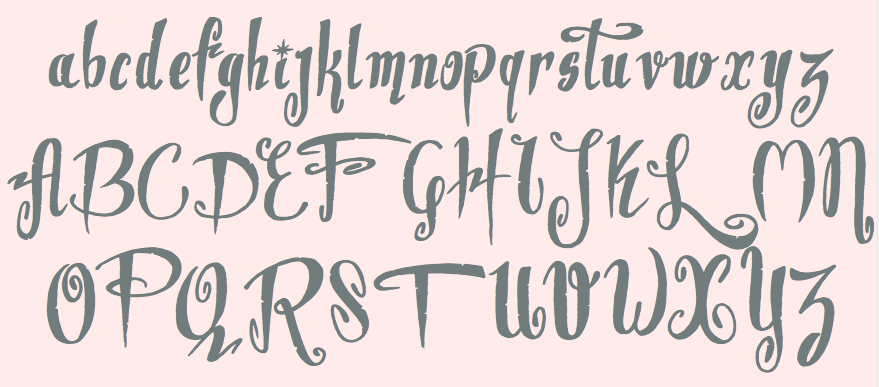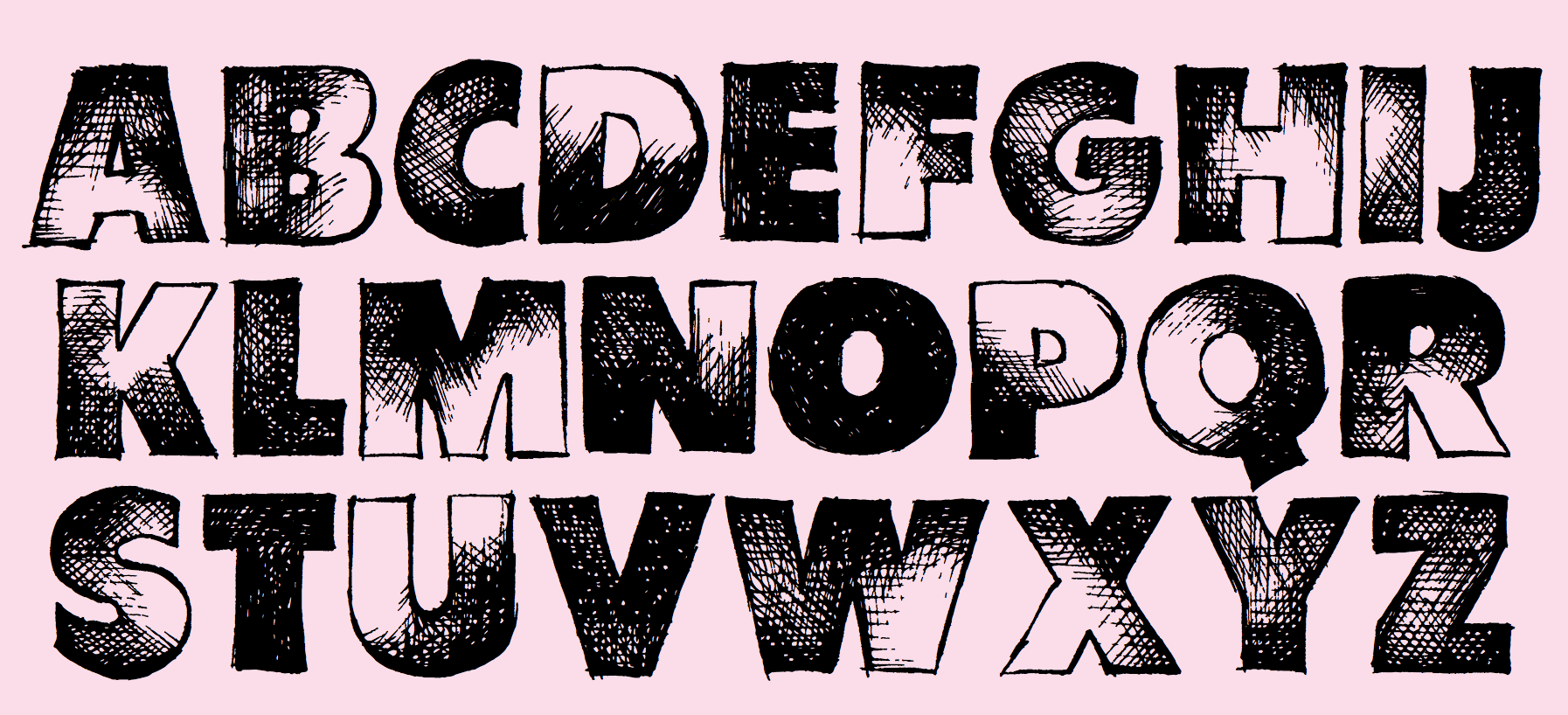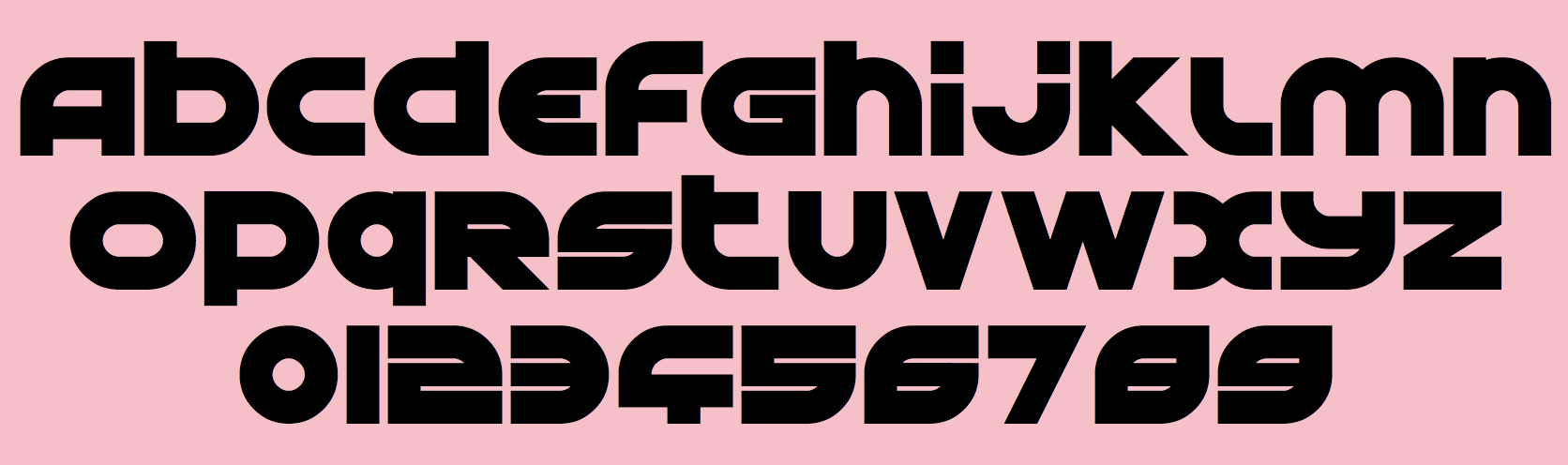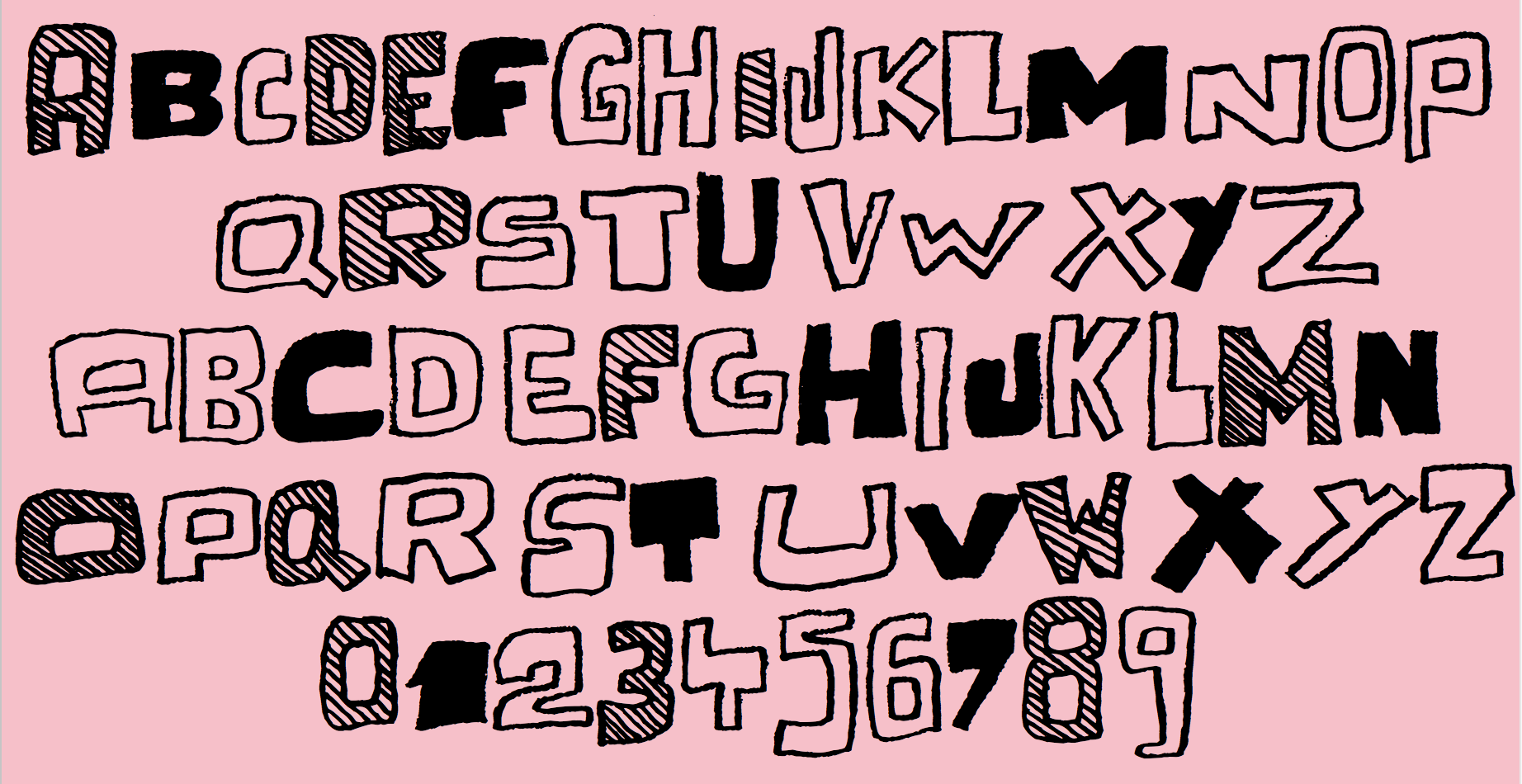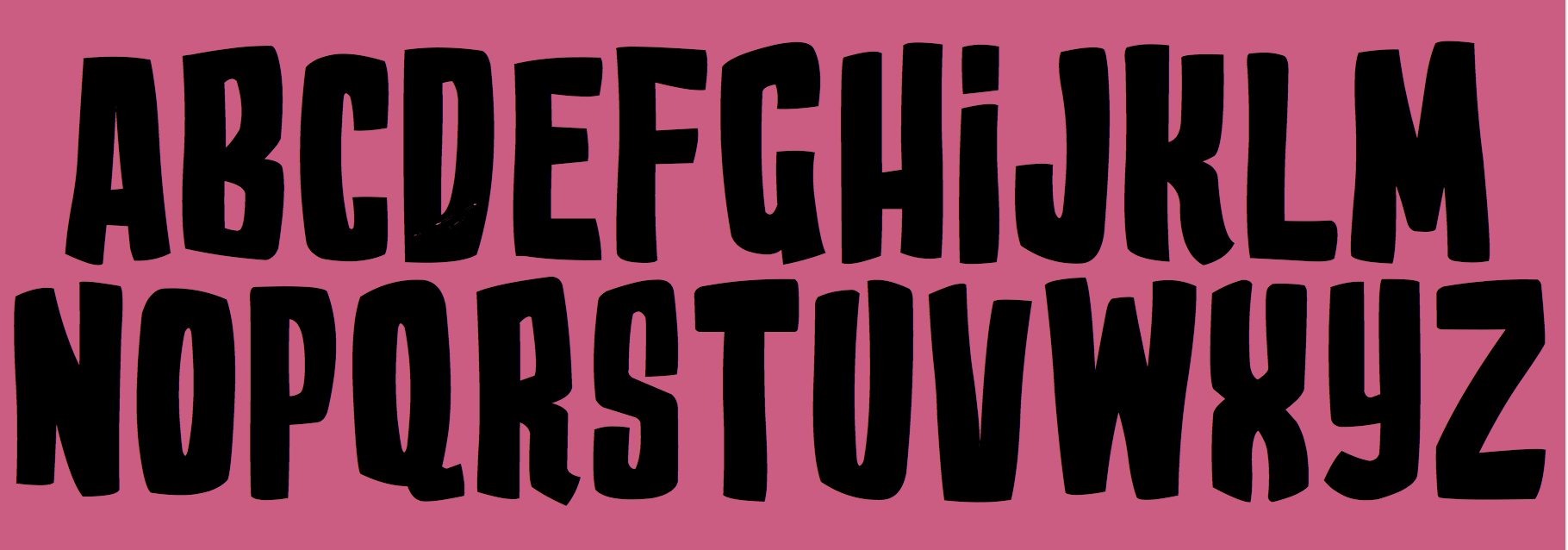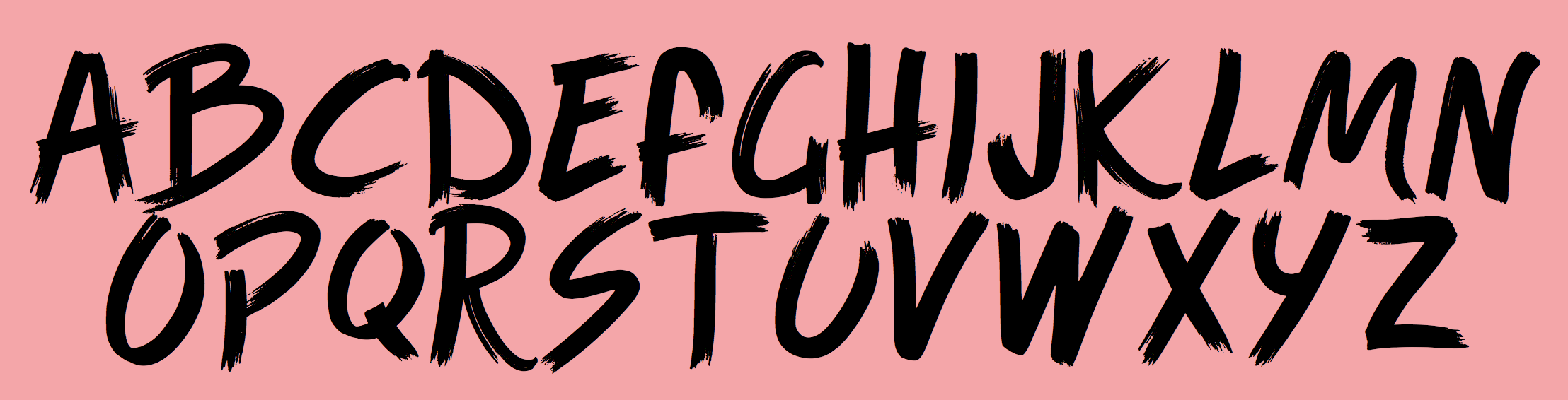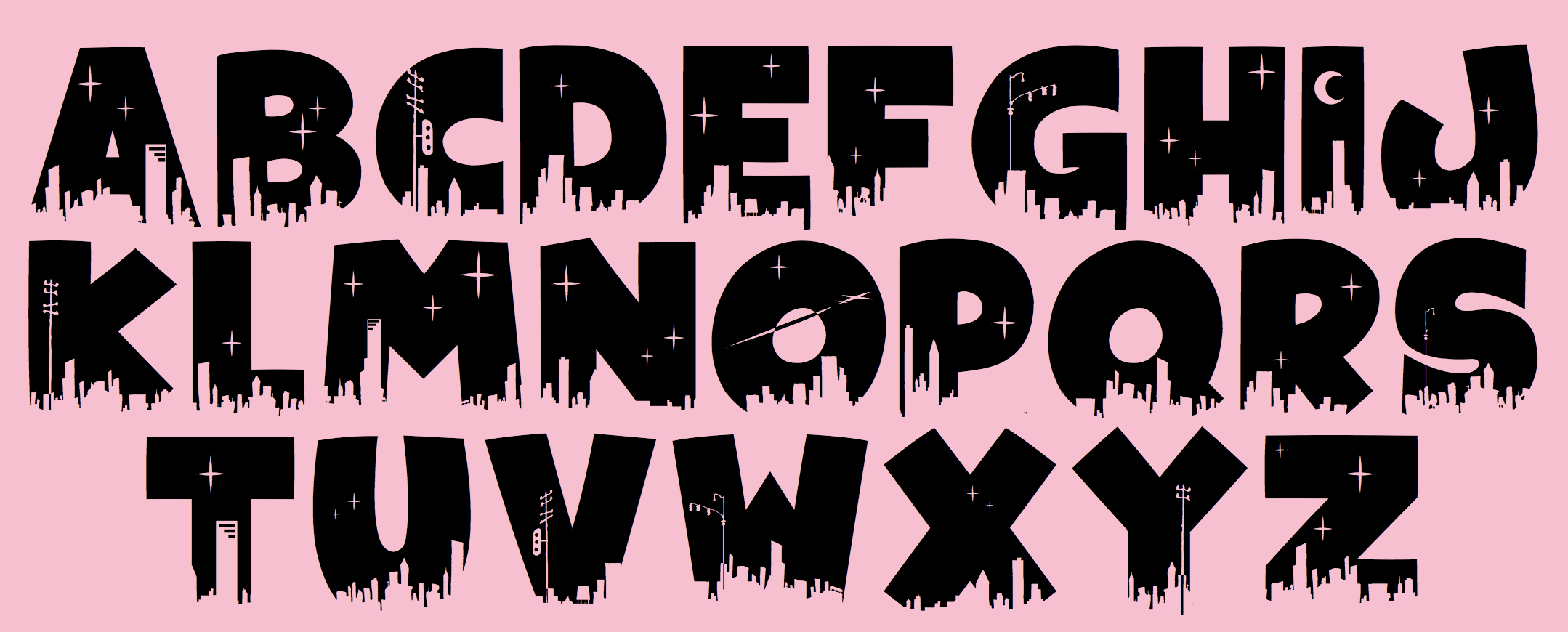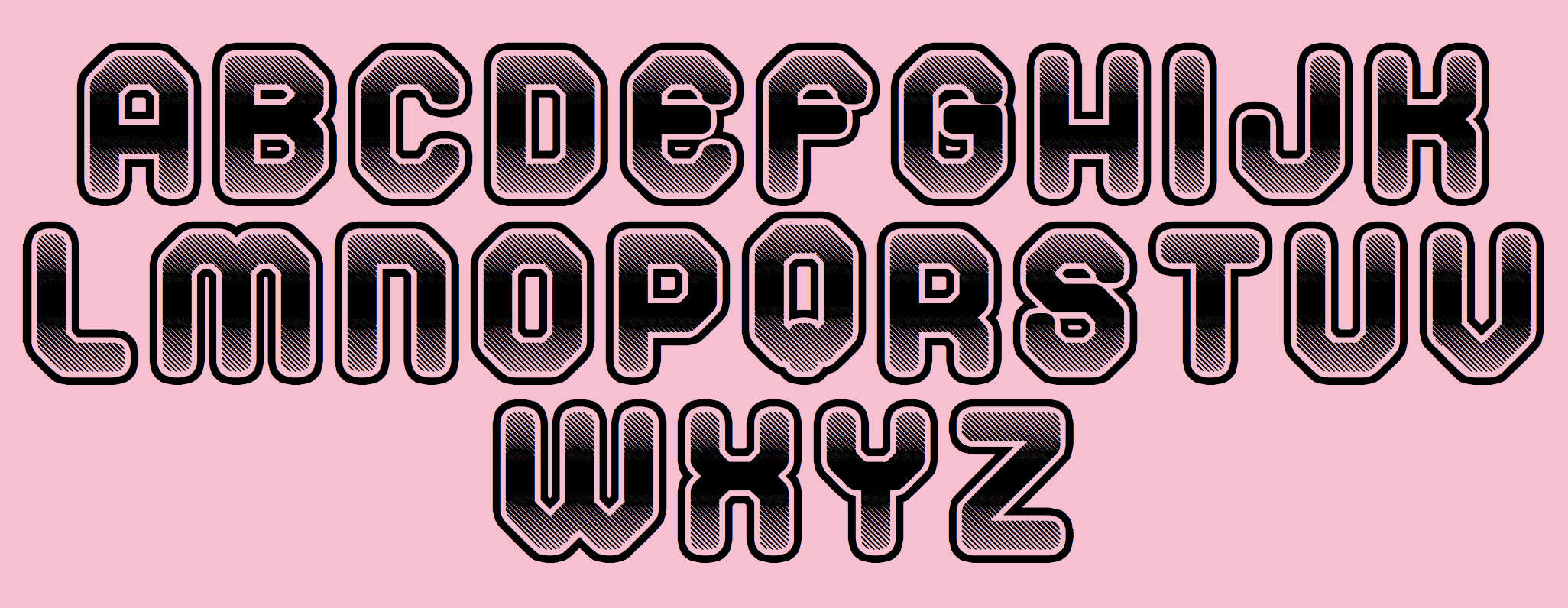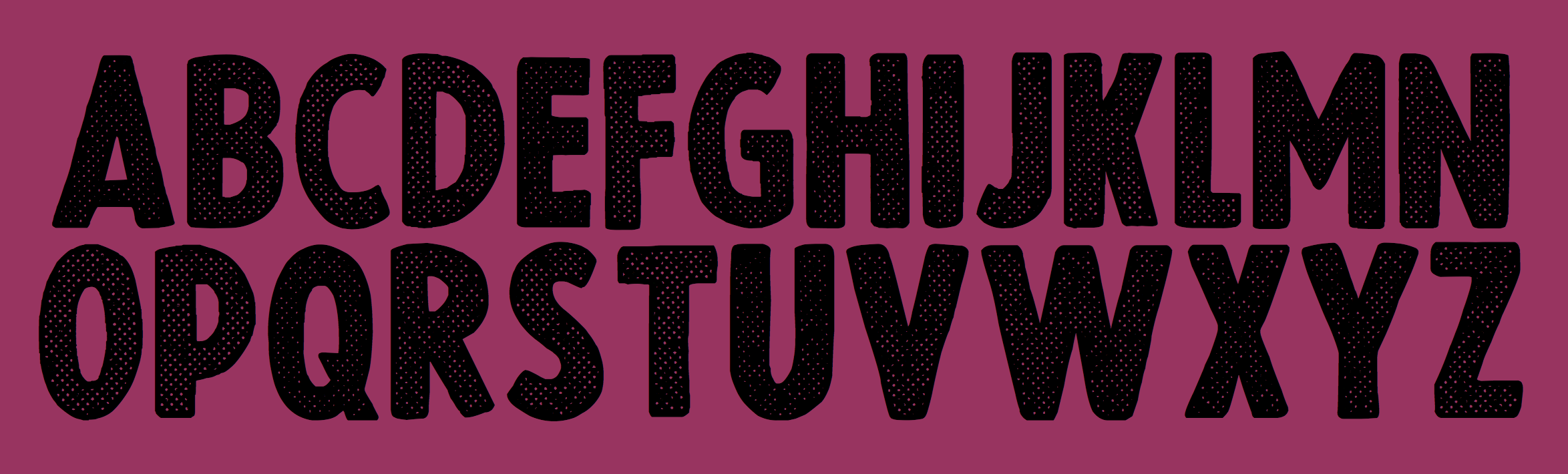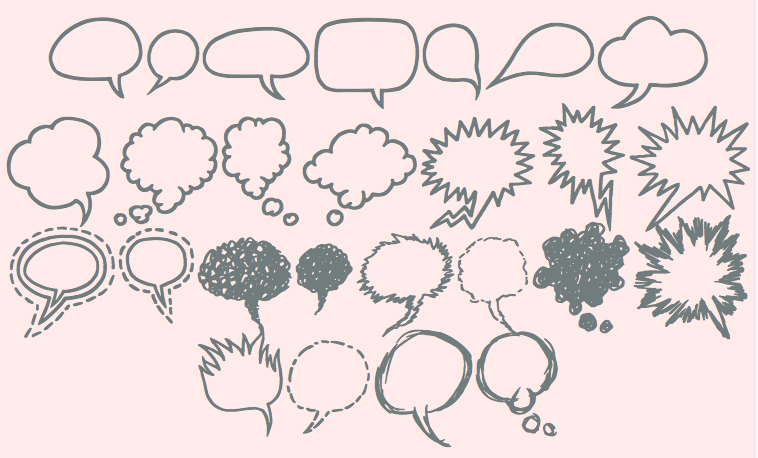
Frenchman (b. 1957) who started making fonts in 2010, after a career in illustration, comics, and video games. In 2010, he created the free fonts BabyJo (pixel face), Bayday, Chrom (beveled face), LaPresse (grunge), Muffaroo, Poppy, Poppydot, Spacecard, Strokewith, Strokeless, ToonLand (comic book lettering), ToonLandBlack, ToonLandShad, TrashToys (grunge), WorldColors (3d face).
In 2011, he published Francobelge (comic book face), Freepress (grunge), Gamix (Western titling face), Inmyroom (dingbats), Majestrick (calligraphic), Onomatopaf (comic book dings), Outerzone, OuterzoneB, Starz (dingbats), Stenstreet (grunge), Tram, Tramix (texture face), TrashToys02, War-Lettersn, Mixagex, Massive Dynamite (grunge), Not Well (grunge), Actu, Blck, Gling (texture face), HeRioz (silhouettes), Brightoon (cartoonish brush face), Muzo (ink spill face), Sharpy, Space Shop (dingbats), Pulp Dance (hand-printed), Essef (art deco), Retro Sign (grunge), Labo (grunge), Exhausted, Komikoz, Puzzled, Toonimals (dings), Penstriped (sketch face), Cashier (grungy), Dan Hand, Hardwell (grungy caps), Colleged (athletic lettering), Goodjean (jeans texture face), Seaside Things (dingbats), Real Tek (techno), Zou (3d hand-printed caps), Painter, Border Line (grunge), Handout (grunge), Tract (grunge), Pulpatone (grunge), Logos I Love, Pal Antic (chancery hand), Twent (fat rounded display face), DoodFlow (dingbats), Afro Add (texture face), Crump (grunge), Big White, Dark Room (grunge), Manifesto (grunge), Tacketil (a FontStruct font), Otto Land (sketch face), Over (outline face), Under (brush dings), Baskertown (grunge), Nursery Tale, Panic (texture face), BlackNDot (ink spill face), Beyond (striped display face), Advert, Car Crash (grunge), Heartz, Starsteel, Smart Faces, Blackflag (a brushed blackletter), Dock 51 (grungy stencil), Lead (3d face).
In November 2011, he created a number of texture typefaces: Hotöcop, Pal Mod, Speedy (sketch face), Thirties Gold, Sunset GP.
Further 2011 typefaces: Poptivi, Shadow Mole, Super Modern Black.
Faces from 2012: Remanence, Winter Days (dingbats), Nowharehouse (grunge), Snuff (grunge), Cup of Tea (3d shadow face), Talk of the wall.
Typefaces from 2012: Egirlz (dingbats), Art Post (white on black poster lettering), Volutes (copperplate calligraphic script), From me 2 you (curly script), PS I Love You, Kolossal (caps only), Kraash, Alexandre (3d engraved headline face), Monstres de poche (dingbats), Alternate (grunge), Warning, Dreams (brush face), Headline Crack, Bump Pad (textured typeface), Carton (grungy white-on-black stencil face), Maybe maybe Not, Frames n Riboons (sic), Blackboard (sketched face), Logotronik (a 3d techno face), Big Bad Dogs (dingbats), Libre Expression (engraved copperplate typeface), Mecagothix (textured blackletter face), Destroy, Destroy Helpers, Buy More, Things we said (curly face), Lost Saloon (Tuscan), Salon de Coiffure (beveled), Brighton Pier (grunge), Motel Vacancy (grunge), Bates Shower (dripping blood typeface), Venus Furs (texture typeface), Showmen, True Men Tattoos (dingbats), Quicker (sketch font), Romanum Est (grungy Trajan face), Also (scratchy letters), Lazy Day (3d font), Pusher, Hard Dumb, The Idiot, Overflowing (grunge), Fast Foont (sketched), Melange (grunge), Jumbo Parade (circus font), Happy Monsters, Zozox (experimental), Magic Sound (packaging typeface), Arena Mascaras (dingbats), Top View (3d face), Flagadoum, Last King Quest, Rhythm n Blacks (textured face), Troll Sketched, Superpoz (a 3d painted typeface of exceptional beauty), HalloCuties (Halloween font), Gothik Steel (circus font), Silvestre Relief (3d titling face), Just Like That (comic book face), Numero 10 (athletic lettering), Tet de Mor (skulls), Facelook, Xmas Dad, Instant Marker, Ragtimer, Punk Dots (textured face), Onomato Vlam (comic book balloons), 8th Cargo (textured mechanical octagonal face), Zu Kabarett (creepy curly German expressionist face), Unusual Day One, Happy New One (party font), Xmas Doods, Xmas Doods 2, Higher, Usual Day One, Team 401 (athletic lettering), Doonga (comic strip letters), Killer's Move.
Typefaces from 2013: Them (fat brush), Ghost Code, Tiny Heroes (figurines), Over There (sci-fi), Higher than High, Abandon (sketched face), Broken Hearts, True Stories, A wolf at the door (wood style poster face), Elo Hand, Bots n Droids (dingbats), Toonimals 2 (dingbats), Halftoned Backup (textured face), Novlang (textured poster face), Come With Us, Ptits Pirates (pirate figurines), Board Dudes (skateboard dingbats), Big Bro's Watch (grungy), Doonga Slash (comic book face), Round About, Signz, Lethal League (grungy athletic lettering), Dark Times, Dandy Hat Trick, tardots (textured typeface), Dinoz (dinosaur dingbats), Big Surprise (fat script), Comix Loud, Arlequin, Fanzine Title, Scotch Taped, Phoenix (dingbats), Rock's Death (grunge), Tuamotu (textured), Trees Friends (dingbats), King Arthur Legend (blackletter), Fairy Strange, Flame On, Mystery, Money Go Round (ransom note font), Seven of One, Captain's Talk, Peaches en Regalia (sketch font), Wrong Board (textured or crayon typeface), Subito (comic book face), Extra Sales (signage face), Gimme Danger (grunge stencil), Alphabet City (graffiti font), Raleigh Rock, Rysky Lines, Splash, Good Vibers (comic book figurines), Tequilla Sunrise (3d shadow face), Graphers Blog, Star Waves, Splash, Action Comics, Wild Trails (wood plank typeface), Tiki Club (dingbats), Bad Striped (sketched face), Come With Me (paint drip face), Famous Oldies (textured face), Girly Toons (dingbats), Eshop Advert, Full Pack 2025, Dickson's Tale (a great grungy caps face), Hand Typewriter, Campus Relief (athletic lettering), ZalienZ (dingbats), Manga Style (oriental brush), Journal du Soir (letterpress emulation), Royal Delight (3d sketched face), Gothix Fate, Lettrisme (a letterpress ransom note font), NYC Zone 123 (graffiti face), Tedz (teddy bear dingbats), Merry Xmas, Last Day On Earth (textured typeface).
Typefaces from 2014: Dite Alla Giovine (flared cursive script), Heavy Gothik (textured blackletter), Comix Bubbles, King of Scotland (textured), Lazy Sketch, Arabica Export (coffee bag texture), Scream Again, Season of the Witch, Soul Festival, Back Ride 342, Cheap-Potatoes, Nine-Feet-Under (grunge), Remingtoned-Type, Search'n-Destroy, Starz-2, Vanished, On The Roof (or: On The Tops), Mad Groove Blast, Another Brick (textured face), Destination Future, Perversionist, Dex's Jobs (Treefrog-style typeface), Ptit Coeur d'Amour, Mickey's School (athletic lettering), One Way or Another (a hand-drawn poster typeface), Californian Cars (license plates), Building State Empire, Back on Lime (shadow face), Next Ups (graffiti face), PatchFun (textured face), Railway to Hells, Shut'em Down, Misunderstanding, Another Brick (textureface), Perversionist (grunge), Destination Future, Linographer, Polish Posterisation, For Girls Only, Half Price 4 You (sketched typeface), Secret Agency (bad ink grunge), Player One (a grungy baseball Script), Raw Notice, Home Mad Popsters, No Silly Walk There, Bad Coma (lovely grunge), Dark Net Warrior (grunge), Cowboy Movie (Western font), Palm Beach (textured typeface), Search n Destroy (textured), Carnaval de mai, Variations (textured), Black Jeans (weathered font), City of Light, Santa's Air Mail (snow-capped letters), Cheap-Potatoes, Nine-Feet-Under, Remingtoned-Type, Search'n-Destroy, Starz-2, Vanished.
Typefaces from 2015: Snake Jacket, Big Campus (athletic lettering), Penball Wizard, When The Eagles Dare, Urban Brush Zone (graffiti font), Wild West Pixel, World Black Shadow, Next Custom, Irresponsible Direction (grunge), Doodle Gum (textured), Posthuman (textured), Red Zone (glaz krak face), Smasher 312 (graffiti font), Columbine (dripping blood font), Tarentula's Web, Just Like This (retro funk), Eastern Brush (oriental brush typeface), Pulp Headlines (grungy typeface), War is Over (letterpress emulation), Thirties Relief, Flowers Power (sic) (floral caps), Direct du Gauche (inky brush), Jackpot (3d, sketched), Numero 10 Clean (athletic lettering), Lace Dreams (textured), Right Chalk (chalky crayon font), Lazy Sketch Black, Golden Age (shaded pixel font), Swamp Death (textured), Astounding News, Heavy Metal Rocking, Fifties Movies, Grunge Strokes 01, Cosmik Orchestra, Paysley Sports (sandy athletic lettering), No Safety Zone (grungy stencil), Quicksands (textured), Break It Down (glaz krak font), Naughty Cartoons, Mad Groove Clean (athletic lettering), Outlaw Stars (grungy Western face), Space Comics, Dirty Bowl 86 (athletic lettering), Cheap Potatoes Black (imitating pototo printing?), ExtraBlur (textured), Backside Air, Megalopolis, Curse of the Zombie, After the Goldrush, Avantgardiste 1934, Easy Fashion (textured), Free Thinking's Murder (textured), Phantom Zone (zombie texture), Snake In The Boot, Checkpoint Charlie (grungy stencil), For Girls Only Bold, Playing In The Mood (piano key face), Intergalactik Airlines, Les Mystères de Paris, Season of the Witch Black (blackletter), Resistance Is Futile (a great textured mechanical typeface), On The Tops Lights (matinee signage), Strawberry Fields, Serif of Nottingham, OnomatoBom (cartoon smaks).
Typefaces from 2016: Dynamix (a shaded comic book typeface), Black Santa (snowy letters), Astral Delight, Mr. Headlines (titling sans), Sister Spray, Shaka Pow (cartoon font), Jack in the Box, Glitter Campus (athletic lettering), Ghost Crazy (heavy brush), Prezident, Flowers Kingdom (psychedelic), Galaxy Corps (octagonal stencil), Stitchn School, Brown Shoes, Armagedon (dry brush), Smasher 312 (graffiti style), Bad Stories, Master Droid, Heavy Metal Box (grungy letterpress), Outerspace Shoping (sic), Extros Backstage (squarish), Jelly Crazies (jellybean font), Black and White Banners, Ballad of Dwight Frye (grungy), Crazy Sixties, SciFi Movies, Maximum Strength (athletic lettering), Evanescente (sketched typeface), Urban Ghost, Vif Argent (watercolor brush script), Demolition Crack (textured), How to Disappear, Public Market, Pyjama Party, Magician Rings (modular sans), Pale Blue Eyes (brush script), All The Mad men (sketched), Dixociative (white-on-black), White Flame (octagonal typeface), Asian Delight (oriental brush emulation), Candy Shop, Barb Wire Club, Super Weird, My Socks Line.
Typefaces from 2017: Scoubidou Rap, Good Morning (cartoon font), Graphik Arts (textured), Danger Zone Warning, Love The One You're With, Are You Hung Up (textured), Keys of Paradise, Mr Headlines Fancy, Game of Brush, Powerful, Ghost Shadow, Quick Menu Boards, Urban Fresh Air, Cheer Lace Leader (textured), Cracked Code (grunge), Very Simple Chalk, Fluo Gums, Very Popular, Personal Service, Blind Signature (crayon font), Blood n Guts, Quarterback Fight (octagonal athletic lettering), Supersonic Rocketship, Reboot Crush, Strange Path (dry brush font), Heroes Legend, Cache-Tampon, Championship (a great horizontally striped typeface), Silver Age Queens, Strange Tales.
Typefaces from 2018: Play With Fire, Scrunched, Megalomaniac Headliners, Craps of Paper (white on black), All Things Must Pass (textured), Presque Normal, Interfearence, Pop of the Tops, Universal Knowledge, Digital College, Cold Turkey (a handcrafted horror font), Strange Magic, Grandissimo, Best Prices (sketched), Magician's Daughter, Children's Theater (textured), Magnifico, Lethal Slime, Pop of the Pops, Slow Death, Folk Festival, Strange Marvel, Strong Impact (octagonal), Heavy Metal Blight, Mango Slice, Are You Jimmy Carl Black, Strange Clowns, Mechanical Animals, Fast Forward, Spanish Castles, Vintage Warehouse, Swamp Black, Pixelmania, Enigma key, Vlump (wooden plank font), Guns n Flash Comix, Black Streamer, East Border (military stencil), Bot Craftshop, Super Quick, Don't You Know?, Return of the Flash, Only The Strong (weathered athletics font), Hands Up, Strange Shadow, White on Black, Ed Wood Movies.
Typefaces from 2019: Inner Mounting Flame, Playtimes, Game Commands (white on black), Magic Spots (with a spotted texture), Vanishing (with a halftone effect), State Secret (squarish), All My Stitches (a hospital font), Lightyear Design, Ancient Ad, African Style (textured with African patterns), Secret Planet (sci-fi), Universal Ignorance, Give Peace a Chance, Hard Punk Gothic, Vraoum (speed emulation font), Galaxy Travels, Megapoliscape, Red Signal, Perfect Mystery (dry brush), Many Years Ago (mechanical, octagonal), Vintage Display (textured caps), Space Sport (textured, octagonal), Dancing Days, Steam Punk, Splatch (comic book font), Rear Defender (octagonal, stencil), Ghost Factory, Kids Magazine.